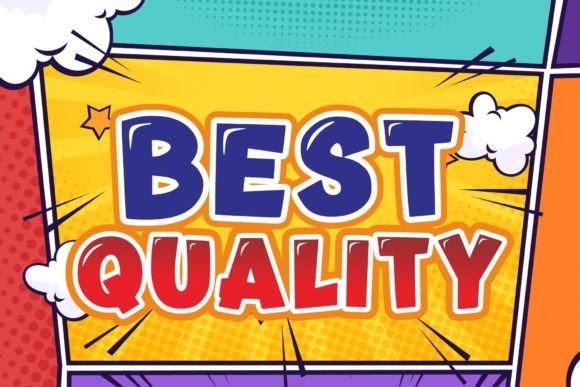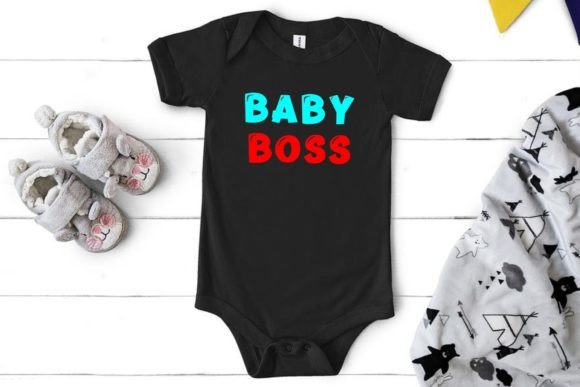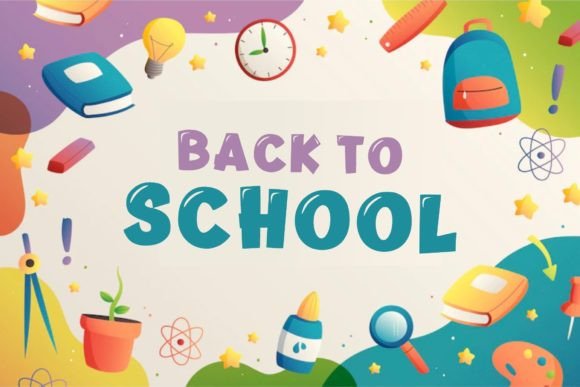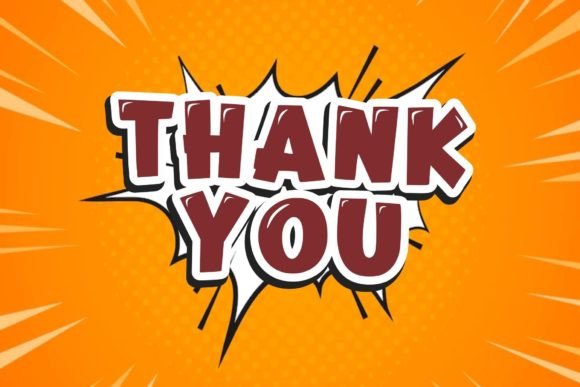
Introducing Doorprize Font: The Ultimate Choice for Fun and Casual Designs
Are you a designer or crafter looking for a font that can add a touch of playfulness and cheerfulness to your visual designs? Look no further than Doorprize Font! This childish and informal display font is perfect for creating fun and casual designs that will capture the attention of your audience. In this article, we’ll explore the features and benefits of Doorprize Font, and how it can elevate your designs to the next level.
What is Doorprize Font?
Doorprize Font is a display font designed to add a touch of whimsy and playfulness to your designs. Its informal and casual style makes it perfect for creating designs that are fun, youthful, and energetic. The font features rounded edges, irregular shapes, and a carefree vibe that will make your designs stand out from the crowd.
Key Features of Doorprize Font
• Childish and cheerful style: Doorprize Font is designed to evoke a sense of playfulness and fun. Its childish and cheerful style makes it perfect for designs that require a youthful and energetic vibe.
• Informal and casual: The font’s informal and casual style makes it perfect for creating designs that are relaxed and laid-back.
• Versatile: Doorprize Font can be used for a wide range of designs, including product packaging, T-shirts, labels, posters, logos, and more.
• Easy to read: Despite its playful style, Doorprize Font is easy to read, making it perfect for designs that require a clear and concise message.
Uses of Doorprize Font
Doorprize Font is a versatile font that can be used for a wide range of designs. Here are some ideas to get you started:
• Product packaging: Add a touch of playfulness to your product packaging with Doorprize Font. It’s perfect for packaging designs that require a fun and youthful vibe.
• T-shirts and apparel: Create fun and casual T-shirt designs with Doorprize Font. It’s perfect for designs that require a playful and energetic vibe.
• Labels and stickers: Use Doorprize Font to create fun and colorful labels and stickers. It’s perfect for designs that require a playful and whimsical touch.
• Posters and flyers: Create eye-catching posters and flyers with Doorprize Font. It’s perfect for designs that require a bold and attention-grabbing headline.
• Logos and branding: Use Doorprize Font to create a fun and playful logo for your brand. It’s perfect for brands that require a youthful and energetic vibe.
Benefits of Using Doorprize Font
There are many benefits to using Doorprize Font in your designs. Here are a few:
• Adds a touch of playfulness: Doorprize Font adds a touch of playfulness and whimsy to your designs, making them more engaging and attention-grabbing.
• Versatile: The font’s versatility makes it perfect for a wide range of designs, from product packaging to logos and branding.
• Easy to read: Despite its playful style, Doorprize Font is easy to read, making it perfect for designs that require a clear and concise message.
• Unique: Doorprize Font is a unique font that will make your designs stand out from the crowd.
In conclusion, Doorprize Font is a fun and playful display font that’s perfect for designers and crafters looking to add a touch of whimsy and playfulness to their designs. Its informal and casual style makes it perfect for creating designs that are fun, youthful, and energetic. With its versatility, ease of use, and unique style, Doorprize Font is a top choice for any creation.